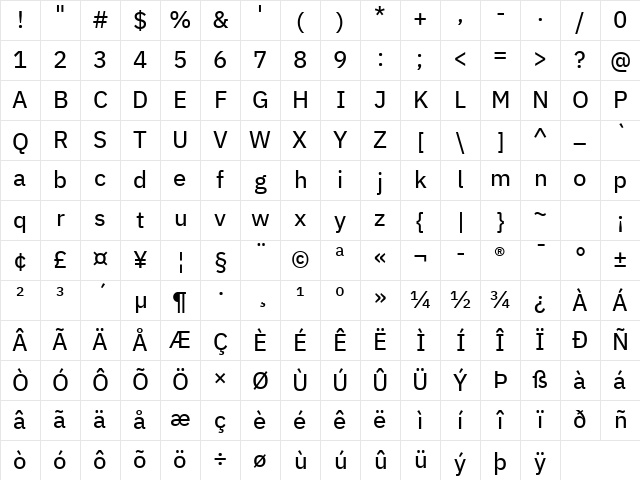
IBM Plex Sans Text Regular
Foundry: Bold Monday
Designer: Mike Abbink, Paul van der Laan, Pieter van Rosmalen
Design Context for IBM Plex Sans Text
IBM Plex Sans Text is a composed and adaptable typeface that performs quietly and consistently across a wide range of design contexts.
Who designed the IBM Plex Sans Text Regular font?
This font was published by Bold Monday. Check the technical specs section for copyright and designer details.